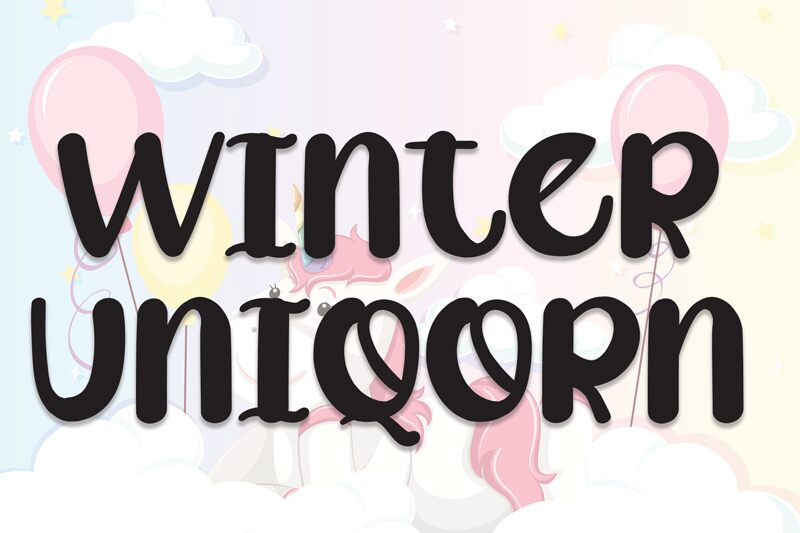
Winter Uniqorn
Winter Uniqorn is a captivating brush font that radiates a sense of whimsy and playfulness. With its bold, sweeping strokes and unique character shapes, this font effortlessly captures a charming, handwritten aesthetic.
The font's distinctive flair makes it an ideal choice for wedding invitations, greeting cards, and other design projects that call for a touch of enchantment. Its versatility extends beyond decorative purposes, as the font's legibility and character consistency also lend themselves well to branding, titling, and informational elements.
The font's delightful personality and adaptability make it a compelling addition to any designer's toolkit.